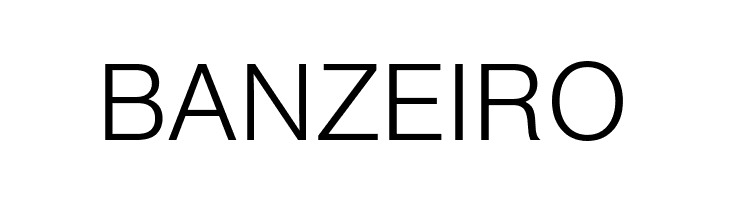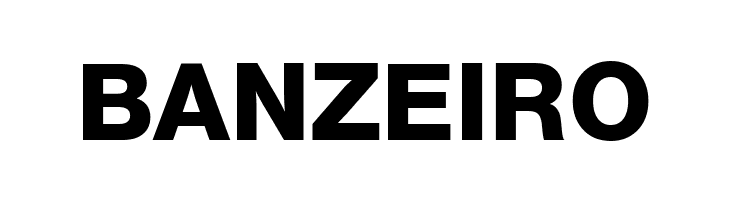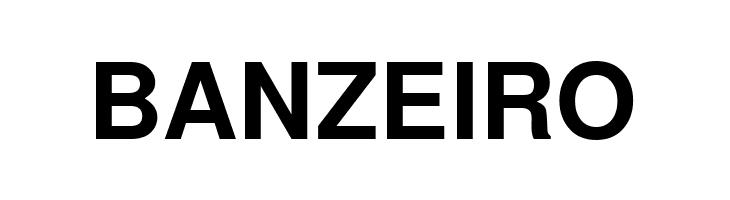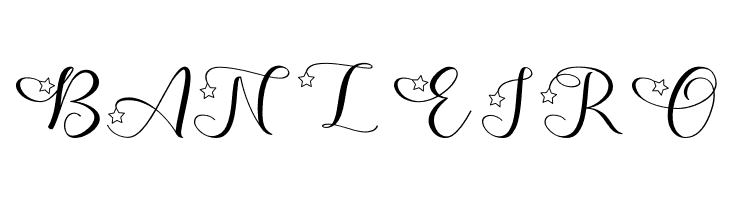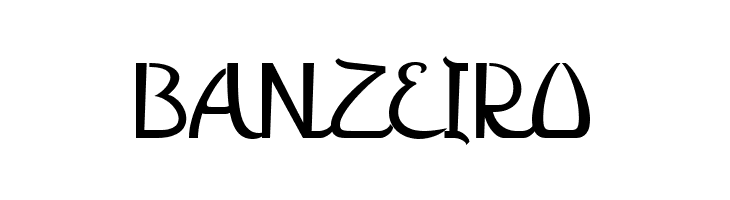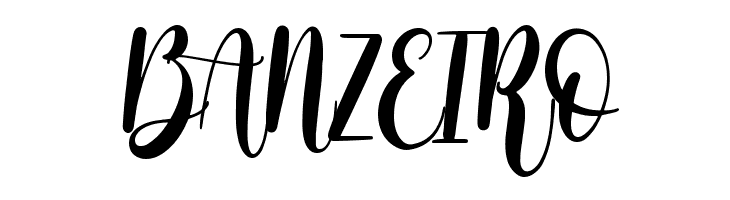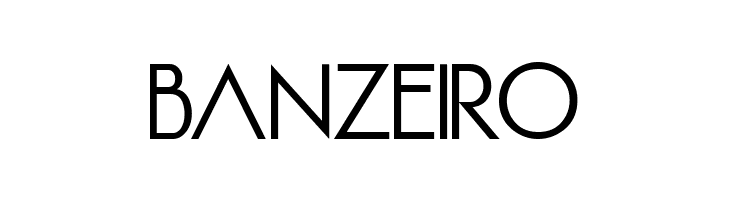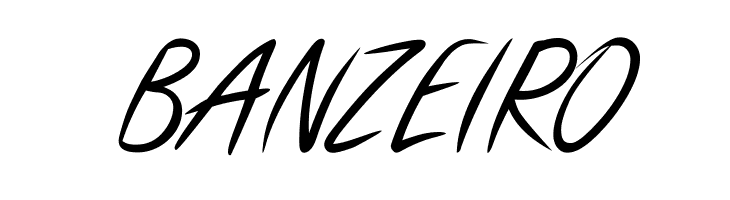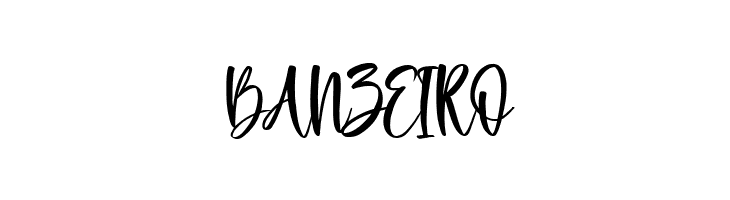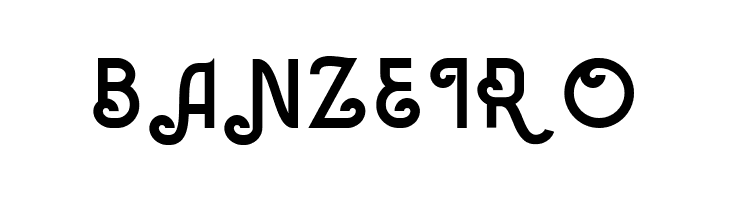
• Almanacques
• almanak FREE
A playful and elegant script font with flowing, connected letterforms.
• almanakFREE
A lively, flowing script font with elegant curves and a handwritten appeal.
• Almanaque Italic
• Almanaque Normal
• Almanaque Outline
• Almanaque Outline Italic
• Almanar Regular
A modern and artistic font with flowing curves and sharp edges.
• Almara
An elegant script font with fluid, cursive strokes and a sophisticated appearance.
• Almarai
A modern, clean sans-serif typeface with balanced proportions and consistent stroke width.
• Almarai Bold
A bold, modern sans-serif font with clean lines and strong readability.
• Almarai Extrabold
A bold, modern sans-serif typeface with strong visual impact.
• Almarai Light
A modern, light sans-serif font with clean lines and balanced spacing.
• Almatter Hustle
A lively, handwritten font with fluid strokes and artistic flair.
• Almaz_Demo Regular
A modern, geometric sans-serif font with clean lines and high legibility.
• Almeda
A decorative and modern font with whimsical uppercase and bold lowercase letters.
• Almeera
A dynamic, elegant script font with flowing, cursive elements.
• Almeida Regular